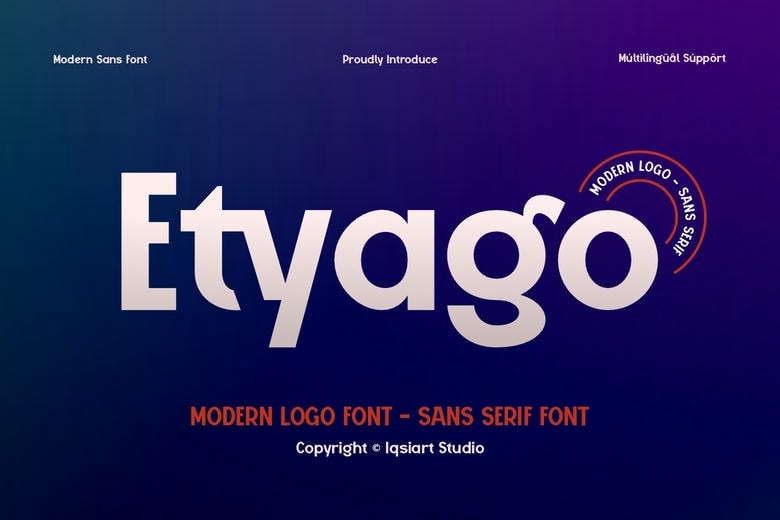
Etyago Font
Etyago is a sans-serif font that’s balanced, easy to read, and bold. Its thick, rounded letters, geometric details, and unique ‘g’ help it stand out. Etyago works in many languages.
Etyago’s clean look adds a modern, professional feel to headlines. It works well for corporate logos, tech brands, website headers, magazine covers, packaging, and custom Cricut or Silhouette projects.
Etyago Sans Serif Font